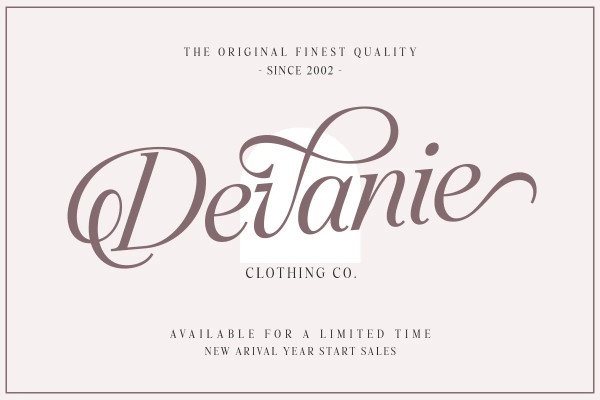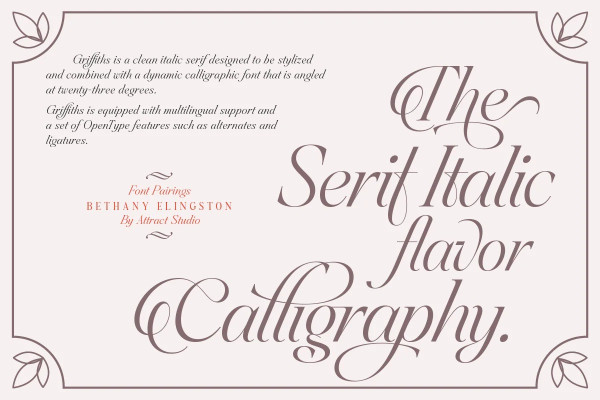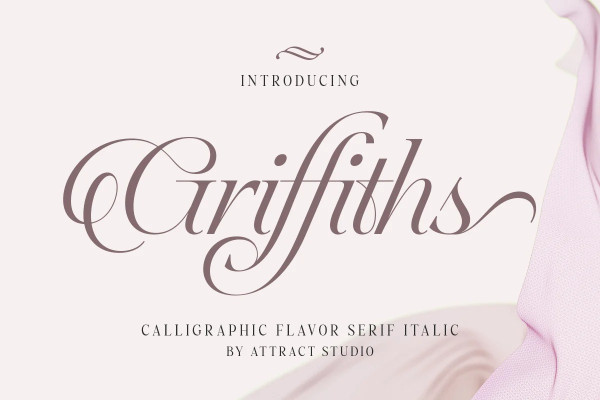
Griffiths Font
Griffiths Font is a clean italic serif designed to be stylized and combined with a dynamic calligraphic font that is angled at twenty-three degrees. Griffiths is equipped with multilingual support and a set of OpenType features such as alternates and ligatures.